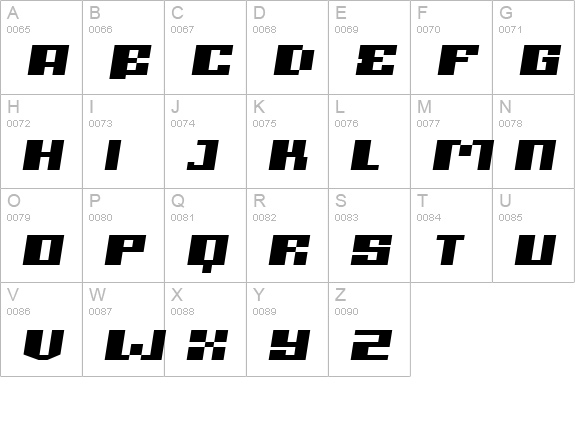
Introducing Treason font, a captivating typeface that exudes a sense of rebellion and sophistication. With its bold letterforms and unique design elements, this font is perfect for those seeking to make a rebellious statement with their typography. Treason font is the embodiment of artistic defiance, combining edgy angles with sleek curves to create a visual masterpiece. Its sharp and distinct shapes command attention, making it ideal for eye-catching headlines, striking logos, or impactful branding projects. This font not only stands out for its rebellious aesthetics but also for its versatility. Whether you're aiming for a grunge-inspired poster or a modern and sleek website design, Treason font adapts effortlessly to any creative vision. And the best part? Treason font is available for free download exclusively at FontsMarket.com. This means that you can unleash your creativity without any limitations or financial burdens. It's a font that believes in the power of free expression and aims to empower designers and artists of all backgrounds. So, seize this opportunity to add a touch of rebellion and individuality to your projects. Download Treason font today and let your creativity run wild with its limitless potential. Stand out from the crowd and make a statement that demands attention.